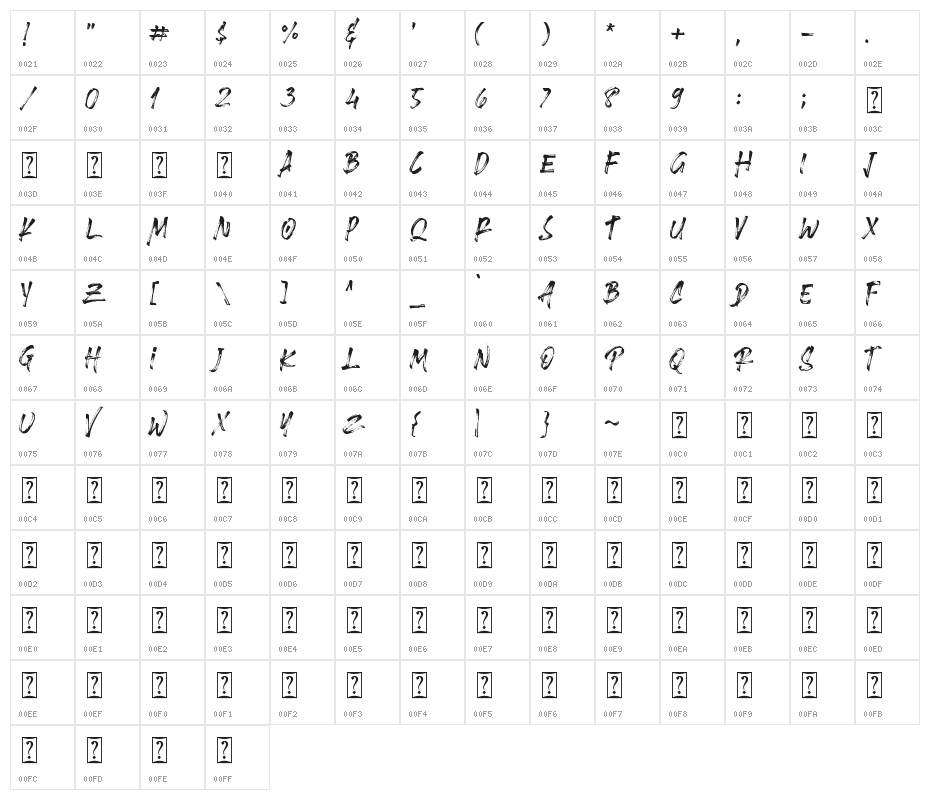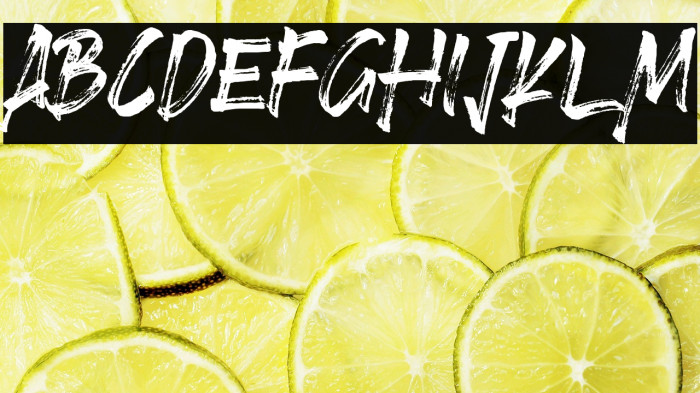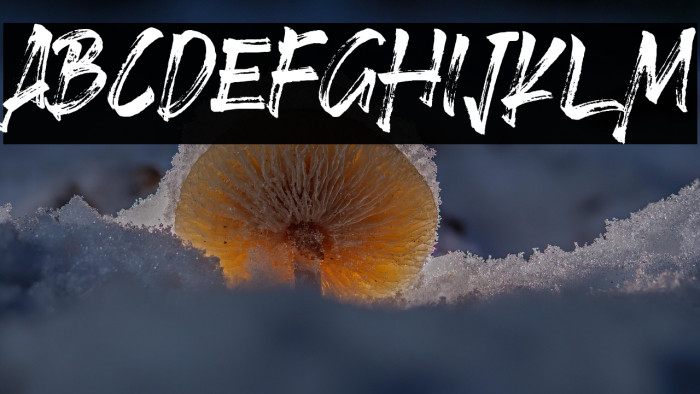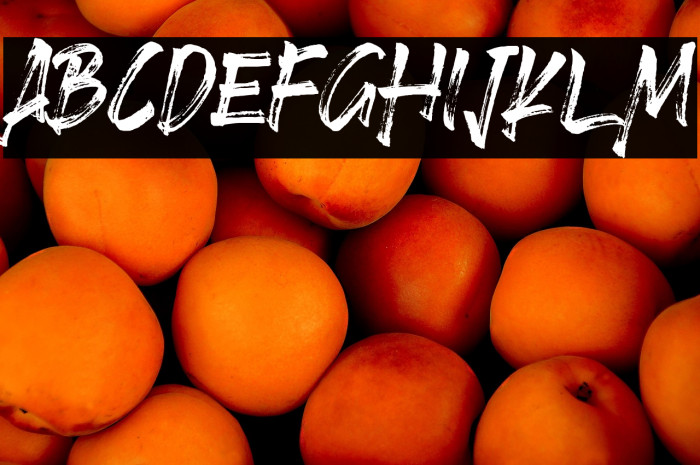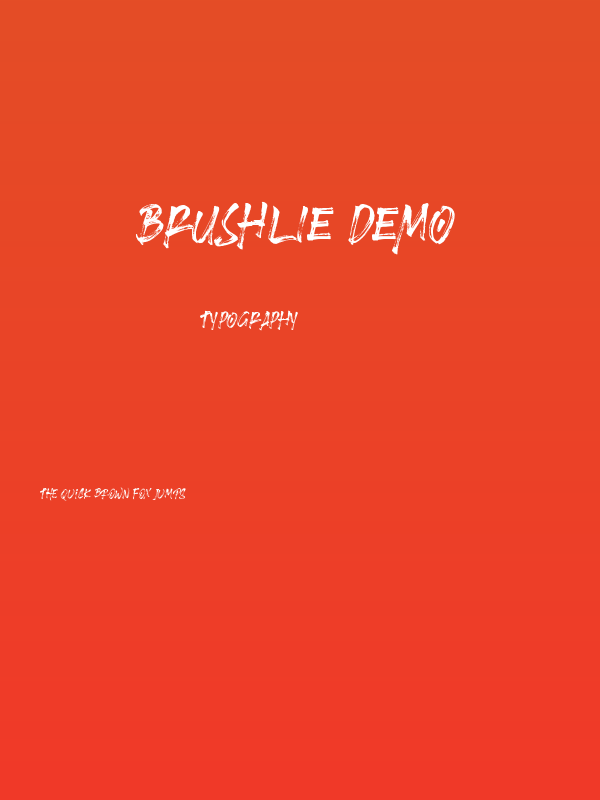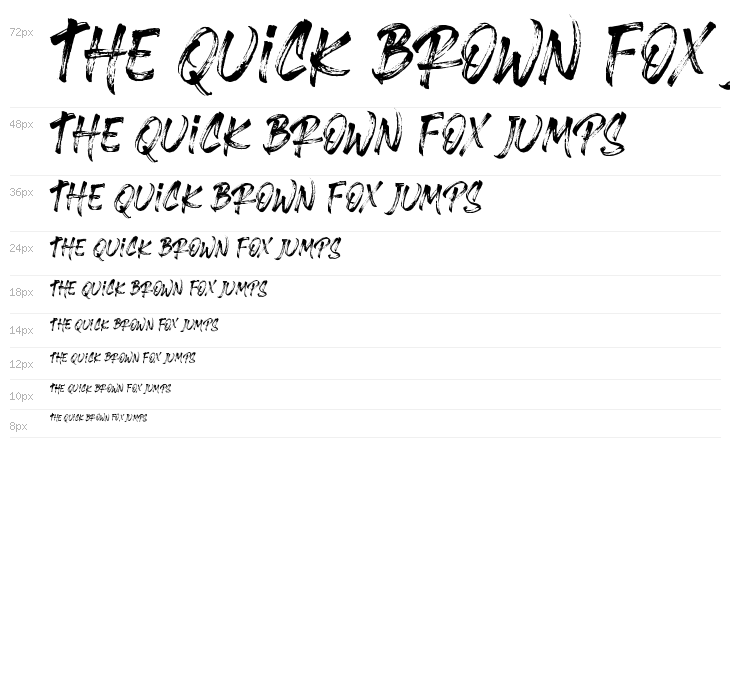
Brushlie Demo Font
Brushlie Demo Description
This font exhibits a bold, energetic brush style with a dynamic and expressive character. The strokes are uneven and textured, giving it a hand-painted appearance that conveys a sense of movement and spontaneity. The uppercase and lowercase letters maintain a consistent style, with exaggerated curves and sharp angles that enhance its artistic flair. Numbers and special characters are equally expressive, ensuring a cohesive look across all text elements. This font's raw and edgy aesthetic makes it stand out, perfect for projects that require a touch of creativity and boldness.